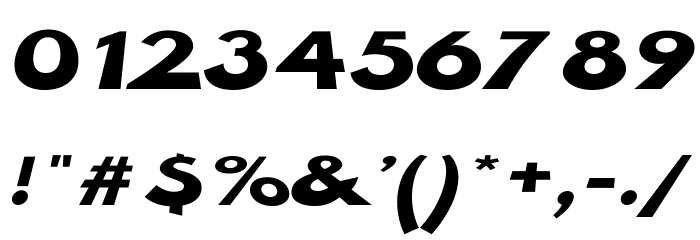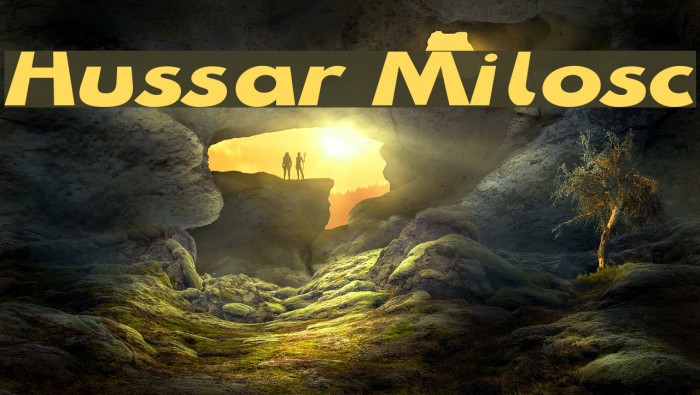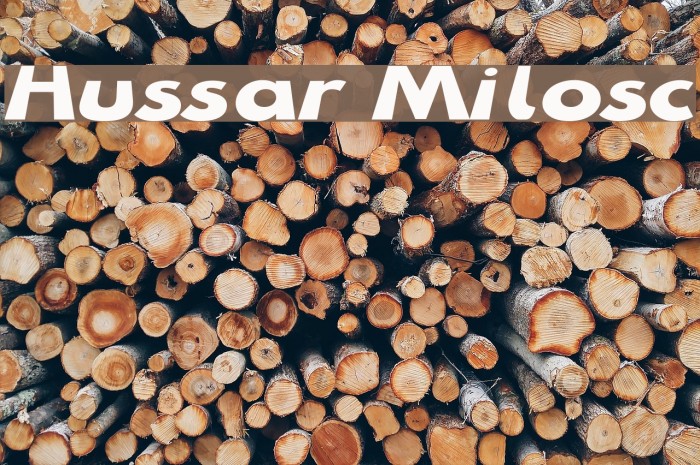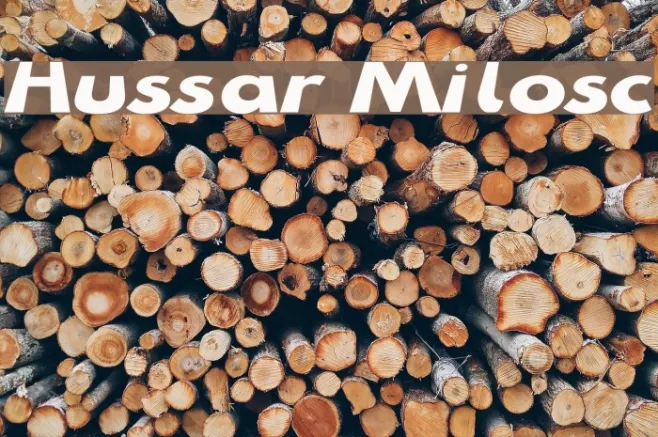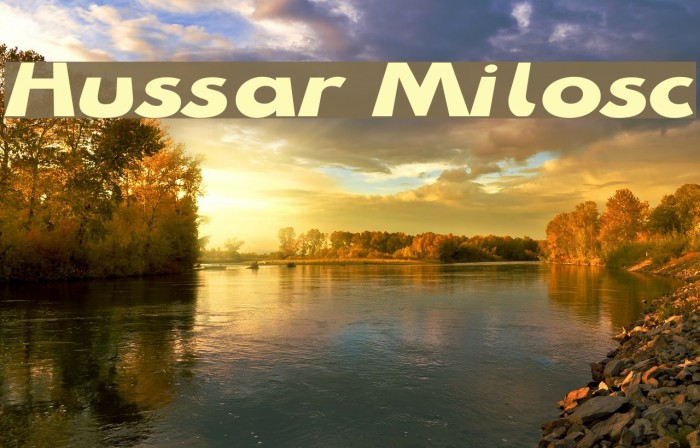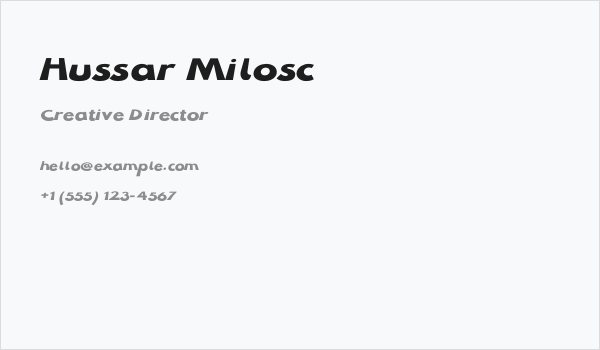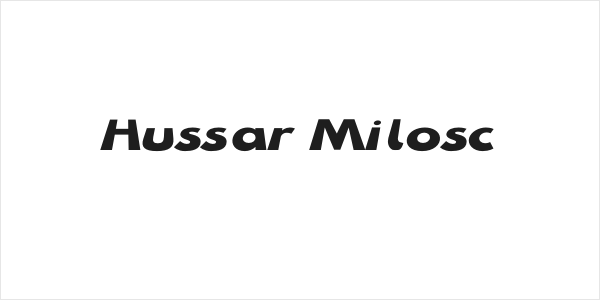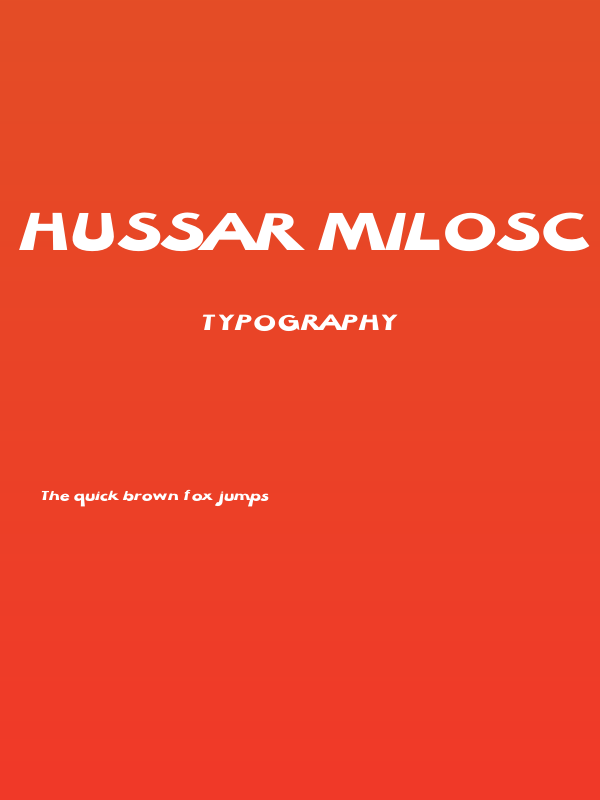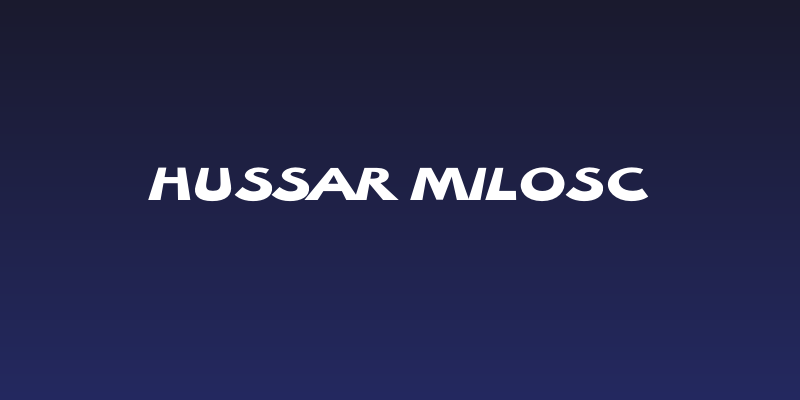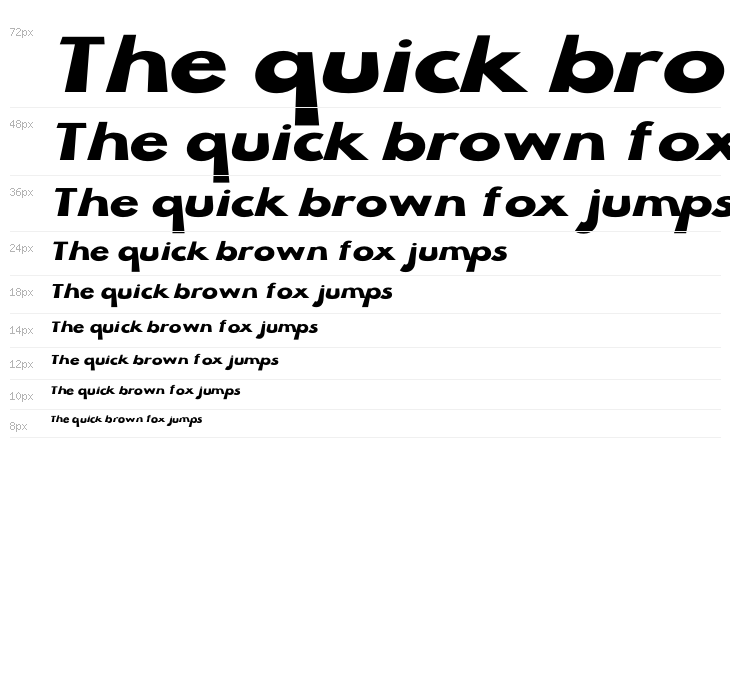
Hussar Milosc Font
Hussar Milosc Description
This font features a bold and dynamic style with a strong presence. The uppercase letters are slightly slanted, giving a sense of movement and energy. The lowercase letters maintain a consistent weight, complementing the uppercase with a more rounded and approachable feel. The numerals are bold and clear, ensuring readability. Special characters are well-designed, fitting seamlessly with the overall aesthetic. The font's unique character is emphasized by its thick strokes and minimal contrast, making it ideal for impactful designs.
| Proposed Projects | Ideal for branding, posters, headlines, and any design requiring a strong visual impact. |